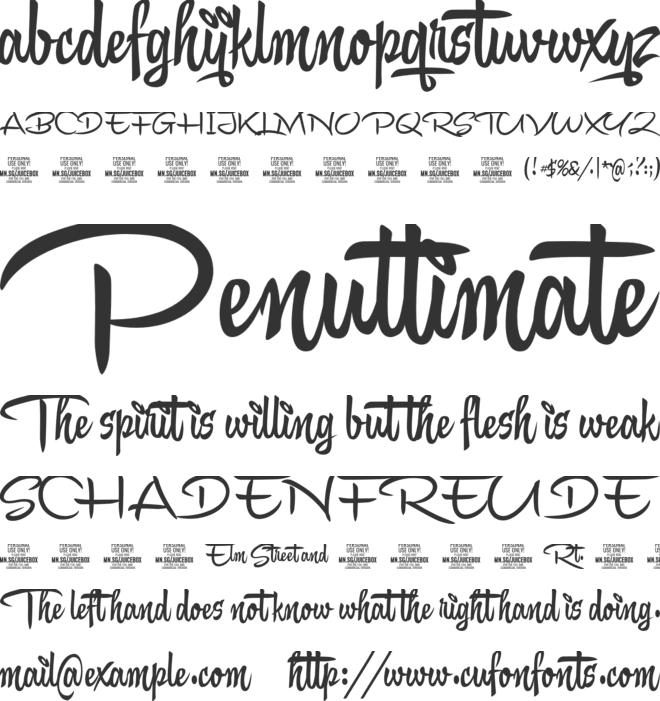
Juicebox Script PERSONAL USE Font
Juicebox Script is a stylish calligraphy font that captures the essence of the 1950s golden era.
With its large capital letters and smooth brush style, this handwritten font radiates the vibrant spirit of a time when jukeboxes were at the center of diners and social clubs.